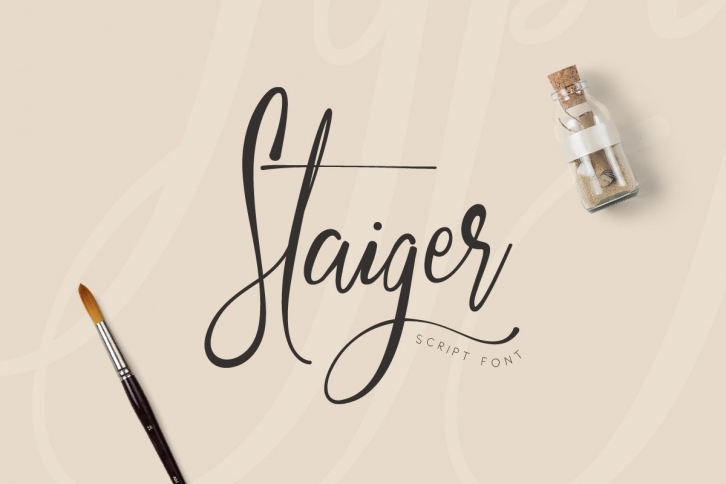
Staiger is modern script font, every single letters have been carefully crafted to make your text looks beautiful. With modern script style this font will perfect for many different project ex: quotes, blog header, poster, wedding, branding, logo, fashion, apparel, letter, invitation, stationery, etc.
Staiger script including alternate glyph.